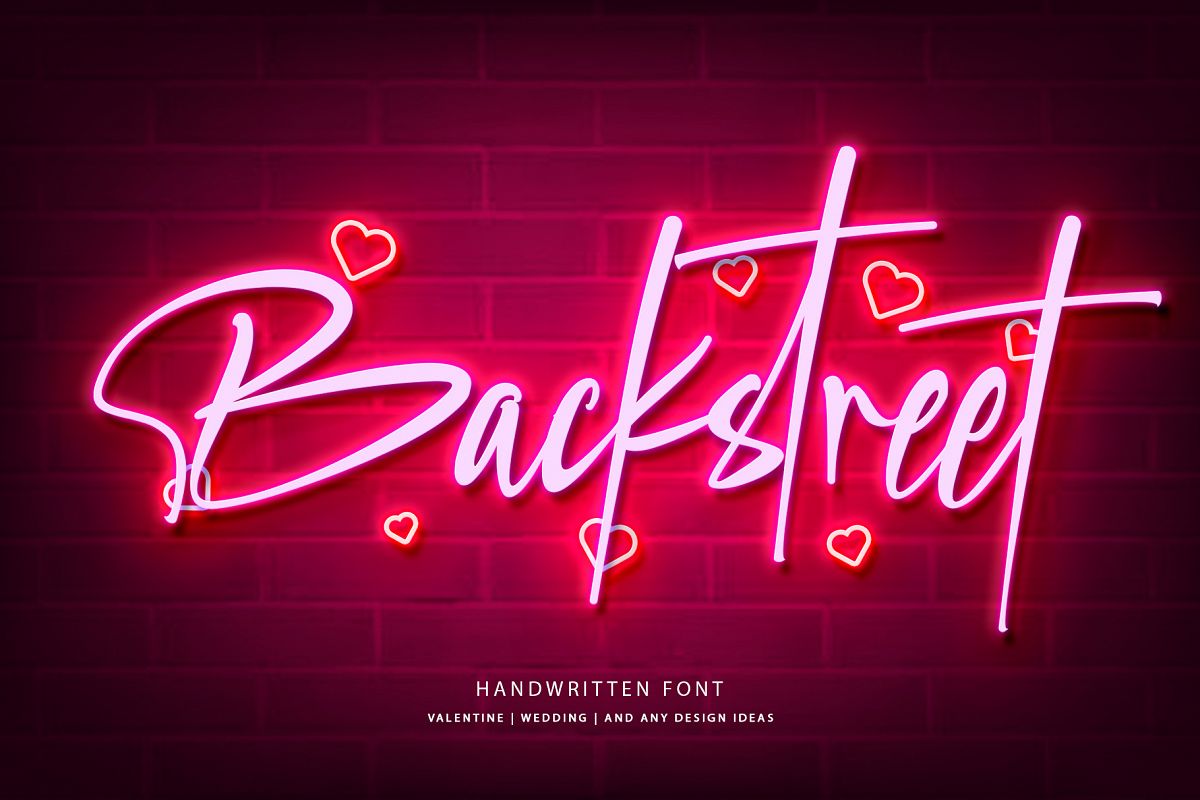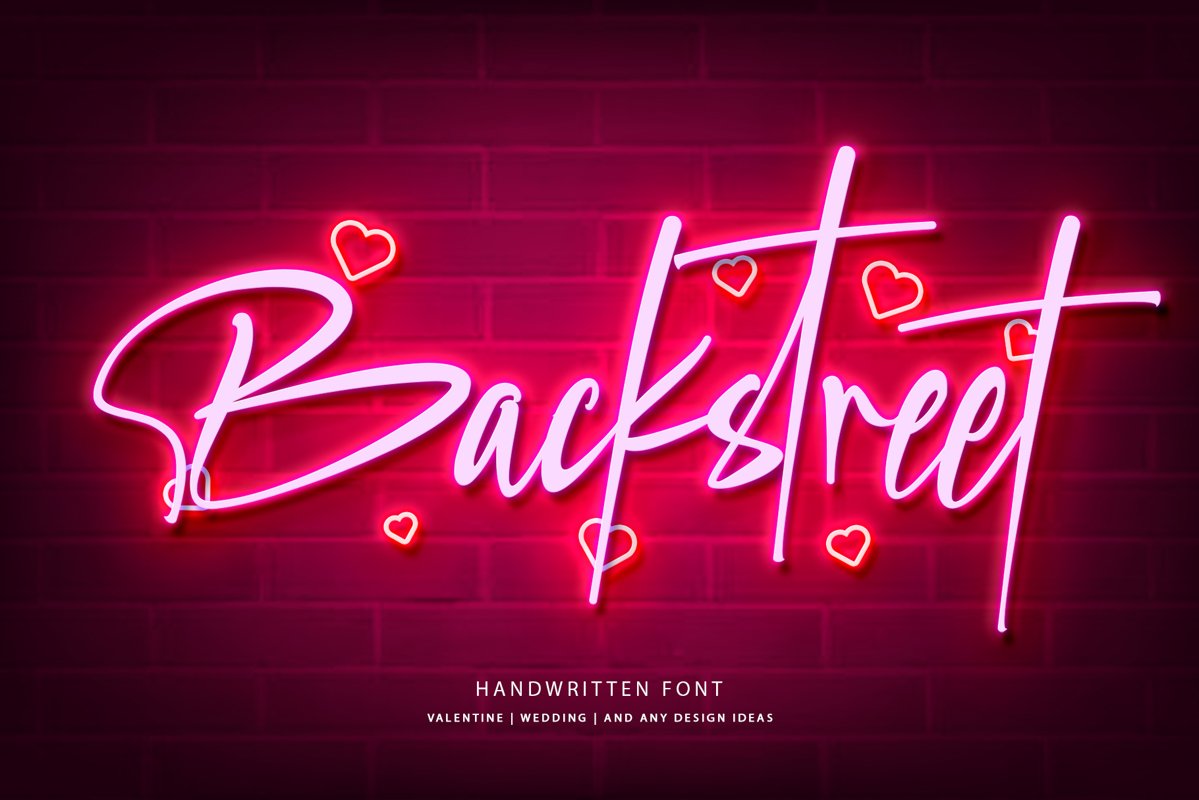
Backstreet is a purely handwritten typeface with its own
unique characteristics. It has an elegant, feminine style with a good
readability. Perfect for valentine days, neon design, signatures, invitations,
titles, and much more!
• The style in this font includes: Regular &
Italic
• Swash & Ligature
• Support multilingual; ä ö ü Ä Ö Ü ß ¿ ¡